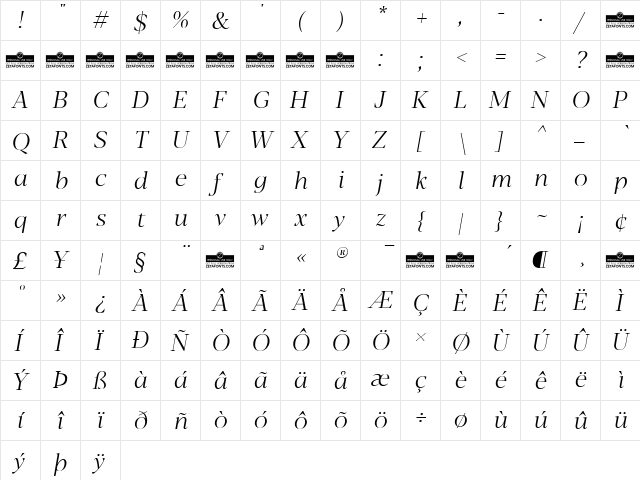
Blacker Display Light Italic Font Preview
| Foundry | Cosimo Lorenzo Pancini & Francesco Canovaro |
| Designer | Cosimo Lorenzo Pancini & Francesco Canovaro |
Design Context for Blacker Display Typeface
Blacker Display is built around its visual character rather than neutral utility — its distinctive forms are designed to make an impression at display sizes. The dynamic lean of this cut emphasises speed and emphasis in any layout. Its slender proportions lend an understated elegance to any composition.
Font Pairing: Pair with a clean neutral sans-serif for body copy to let Blacker Display's character lead without overwhelming the composition.
Pro Tip: Use Blacker Display exclusively at display sizes — it was designed to be seen, not read at length. Let a neutral companion handle body copy.